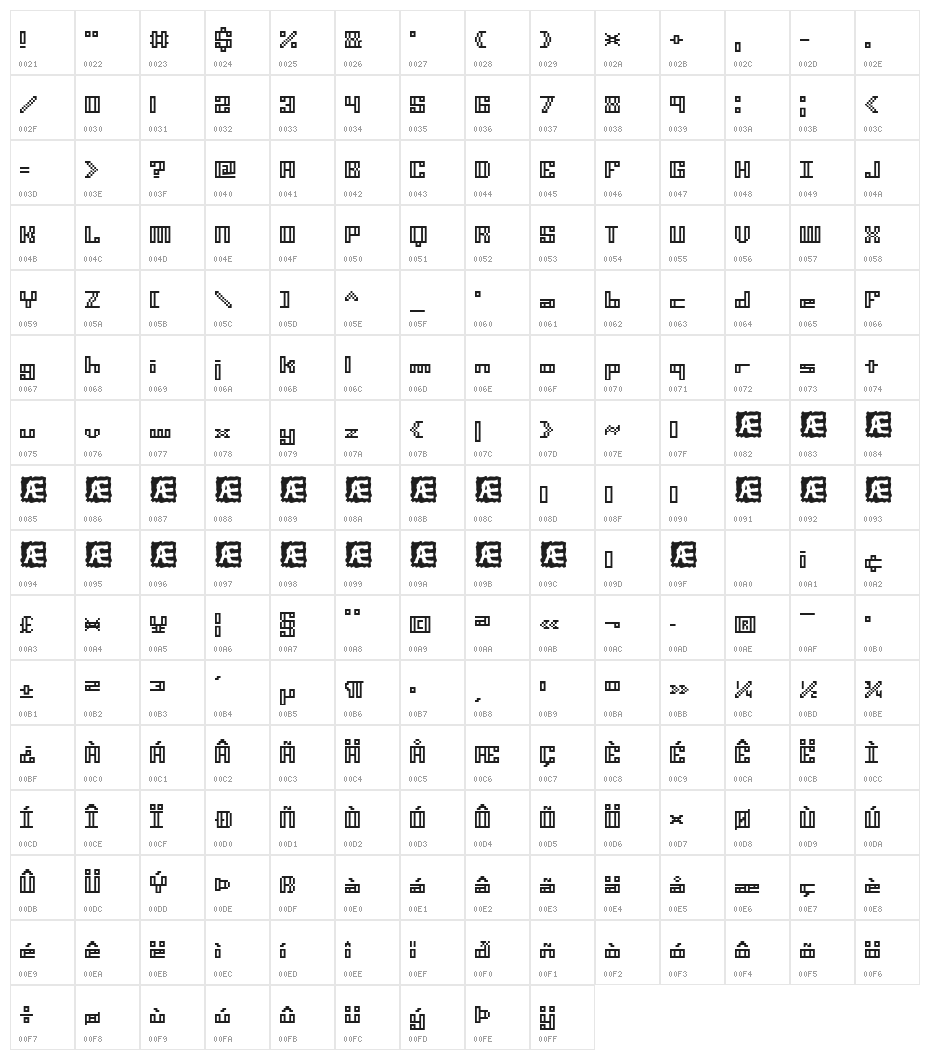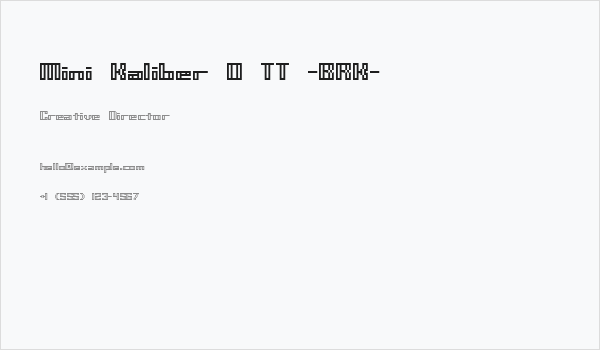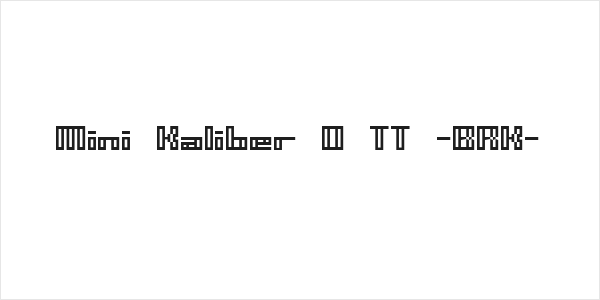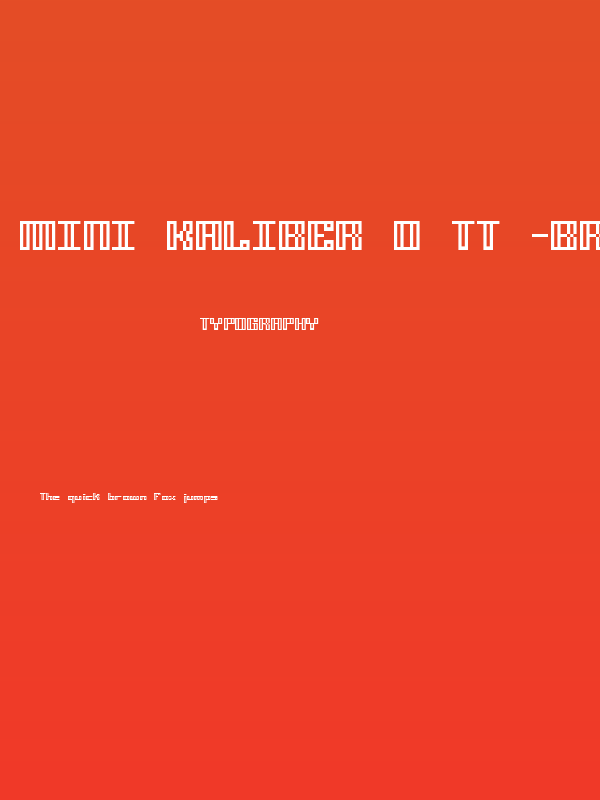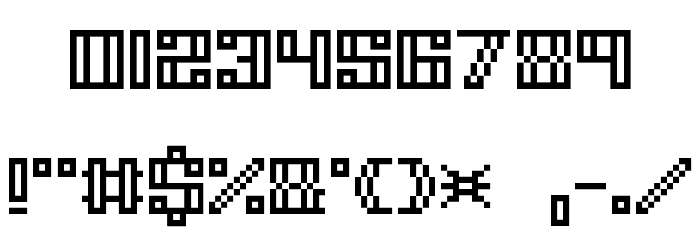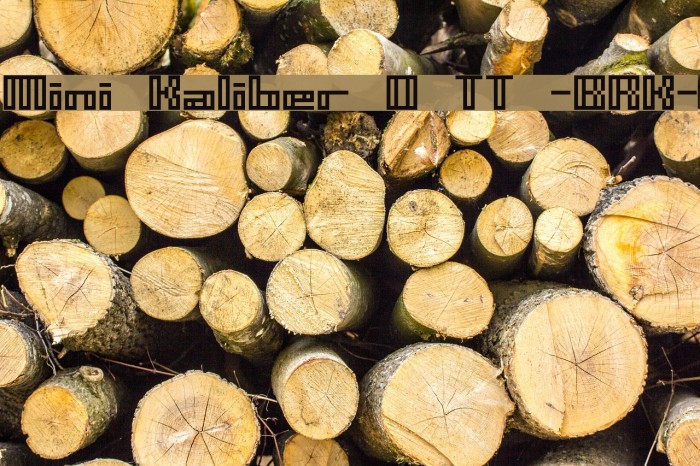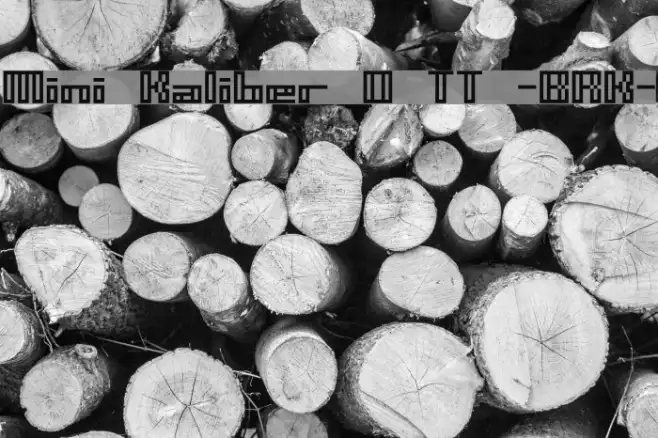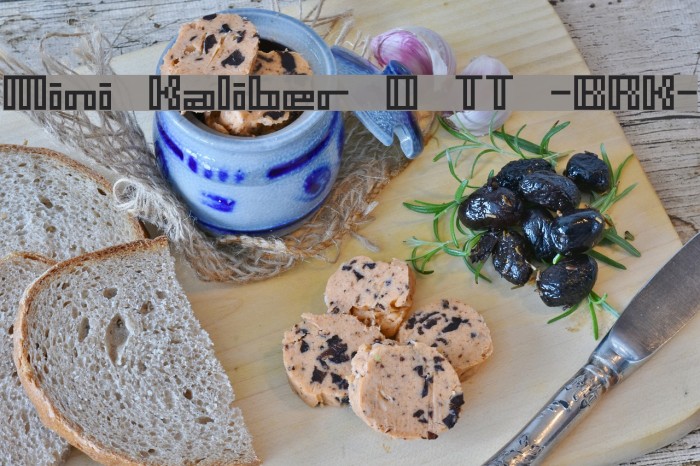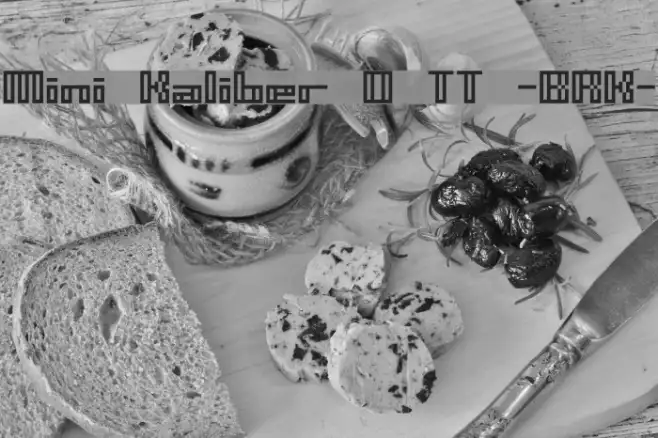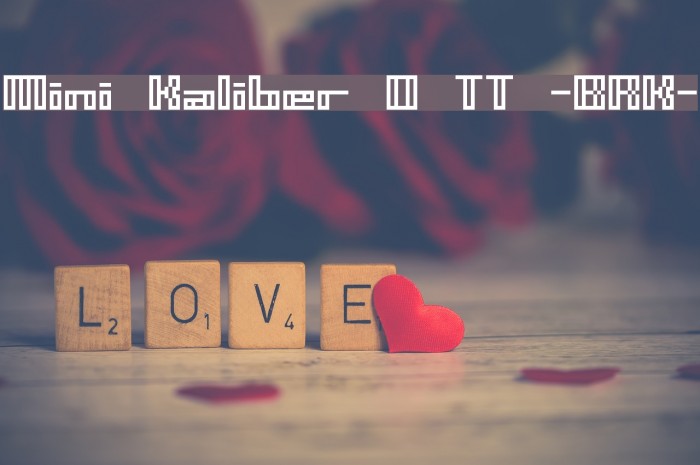
Mini Kaliber O TT -BRK- Font
Mini Kaliber O TT -BRK- Description
This font features a distinct, pixelated style reminiscent of early digital displays or retro video games. Each character is constructed with a grid-like structure, giving it a blocky and geometric appearance. The uppercase and lowercase letters maintain a consistent height, contributing to a uniform look. The numerals and special characters follow the same design principles, ensuring cohesion across all glyphs. The font's unique aesthetic makes it stand out, offering a nostalgic feel while remaining legible. Its design is both playful and functional, suitable for projects that require a touch of vintage digital charm.
| Overall Style | Vintage |
| Proposed Projects | Ideal for retro video game graphics, digital-themed posters, or any project seeking a vintage digital aesthetic. |